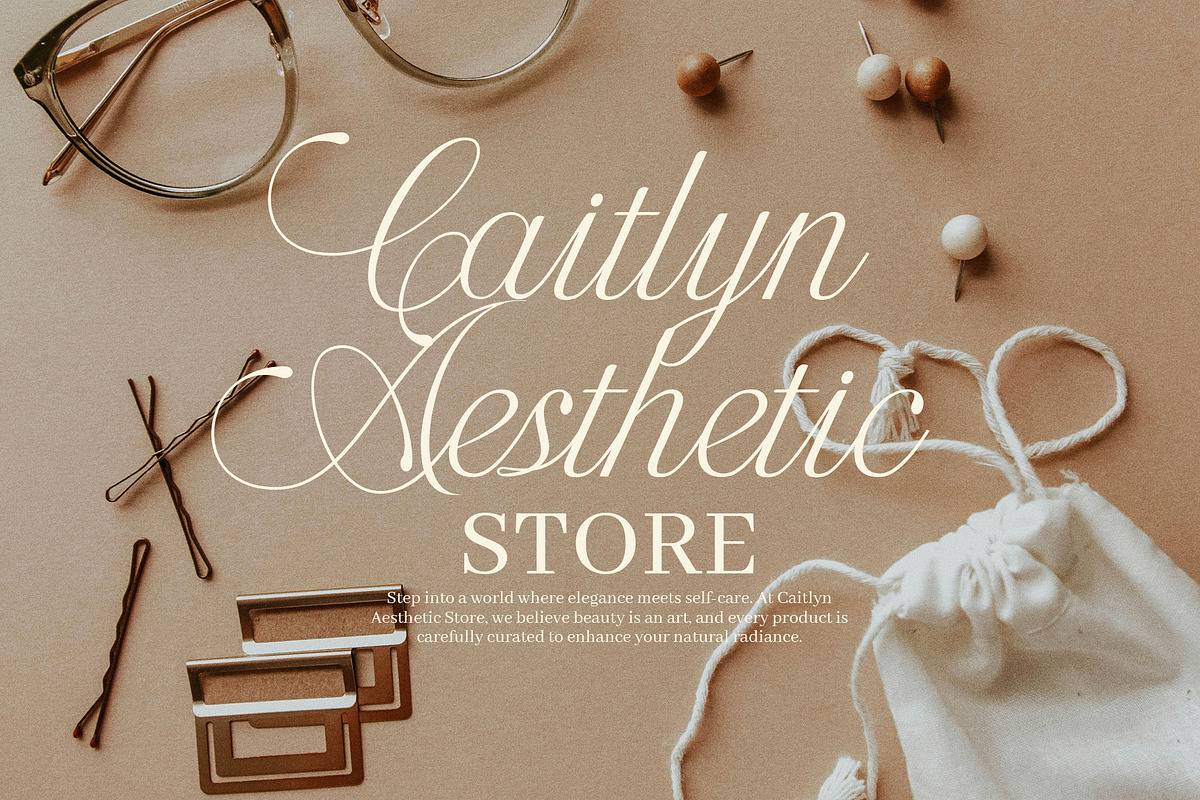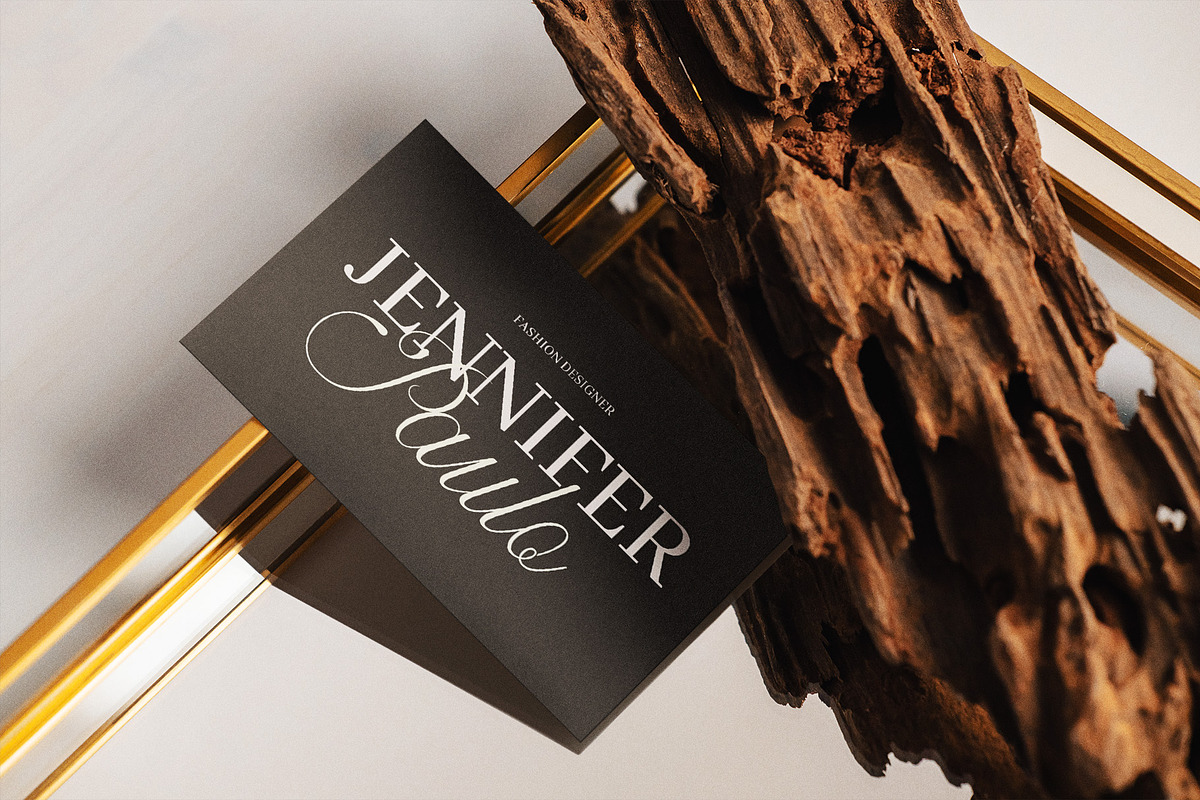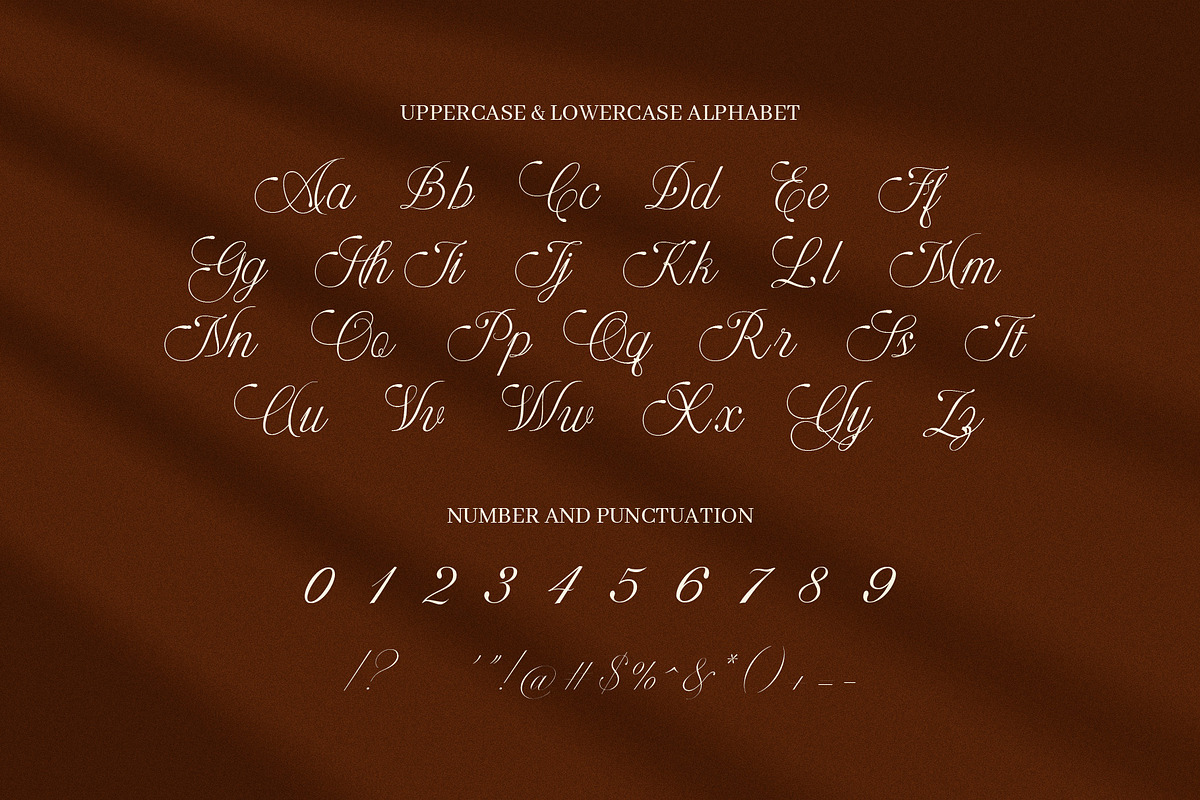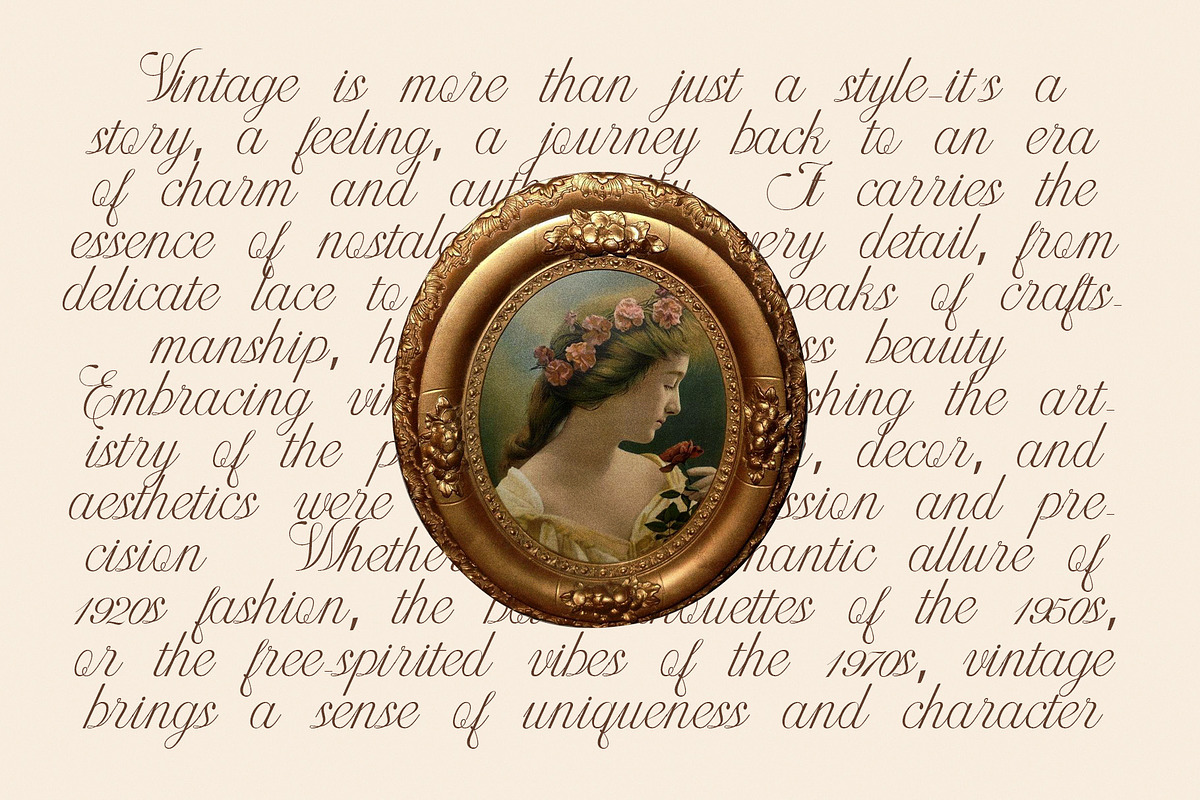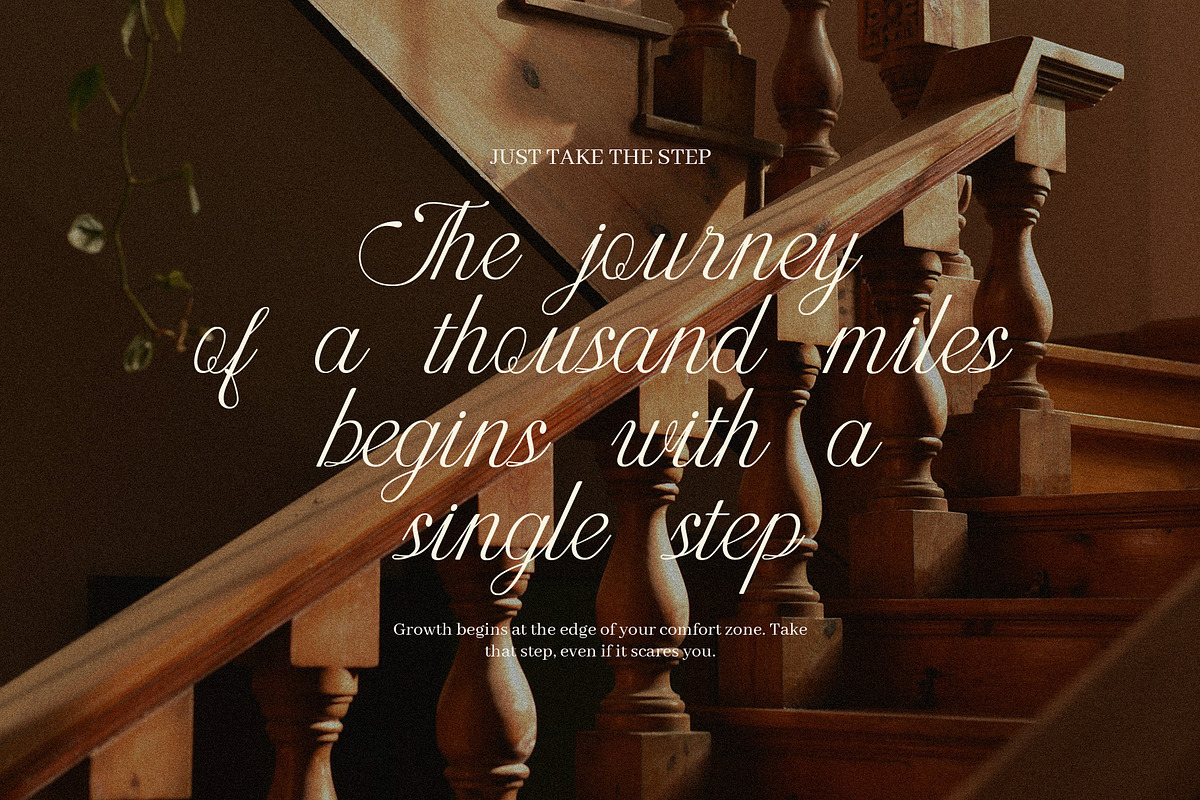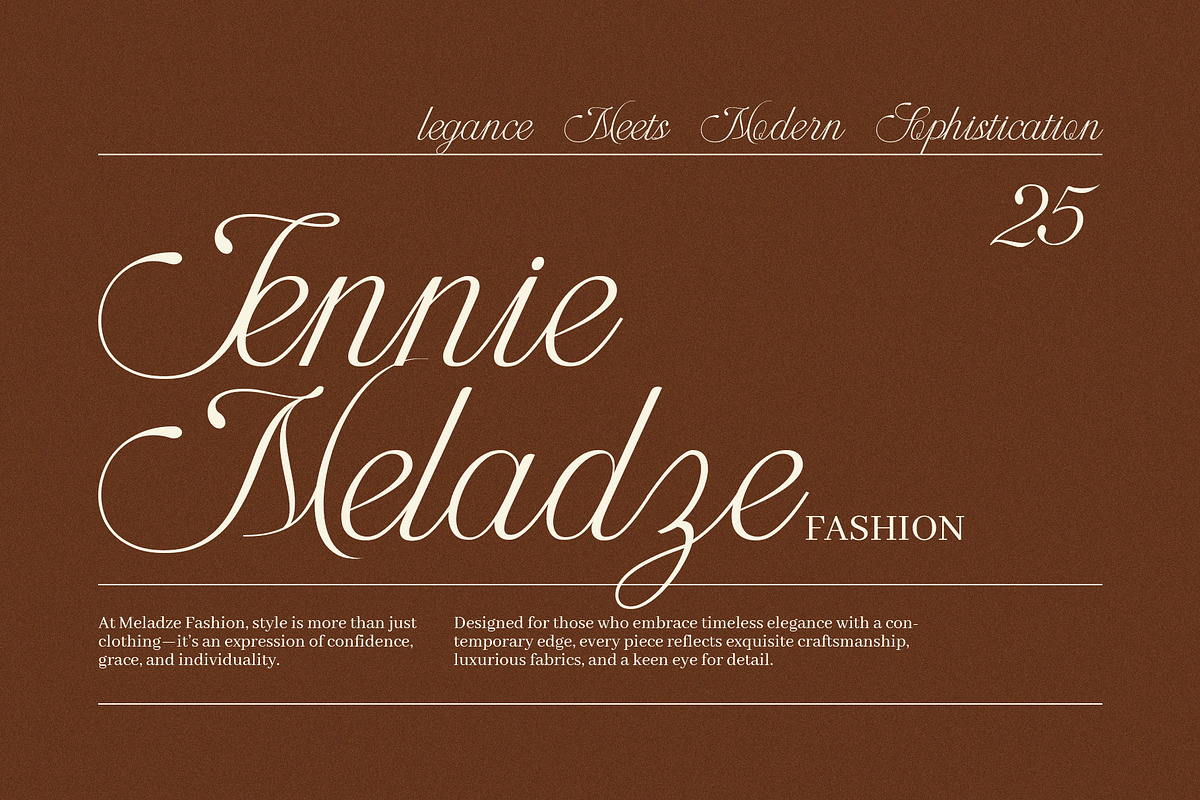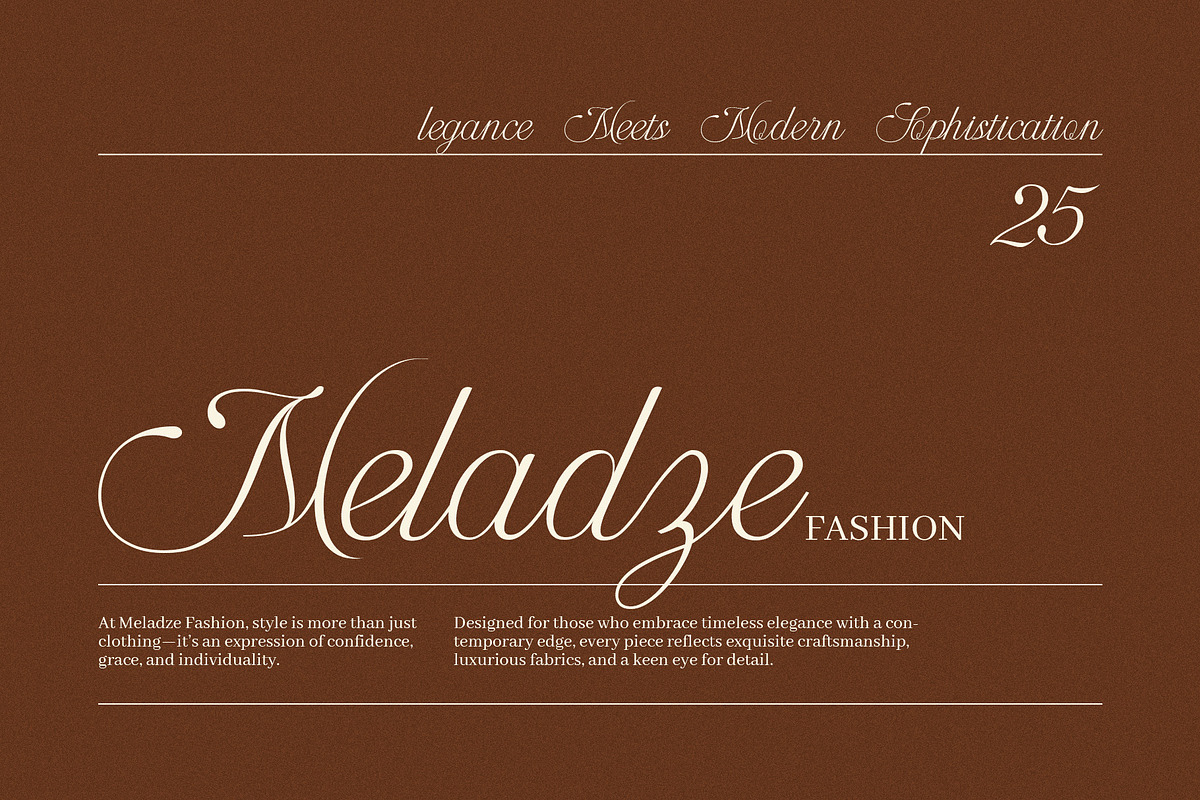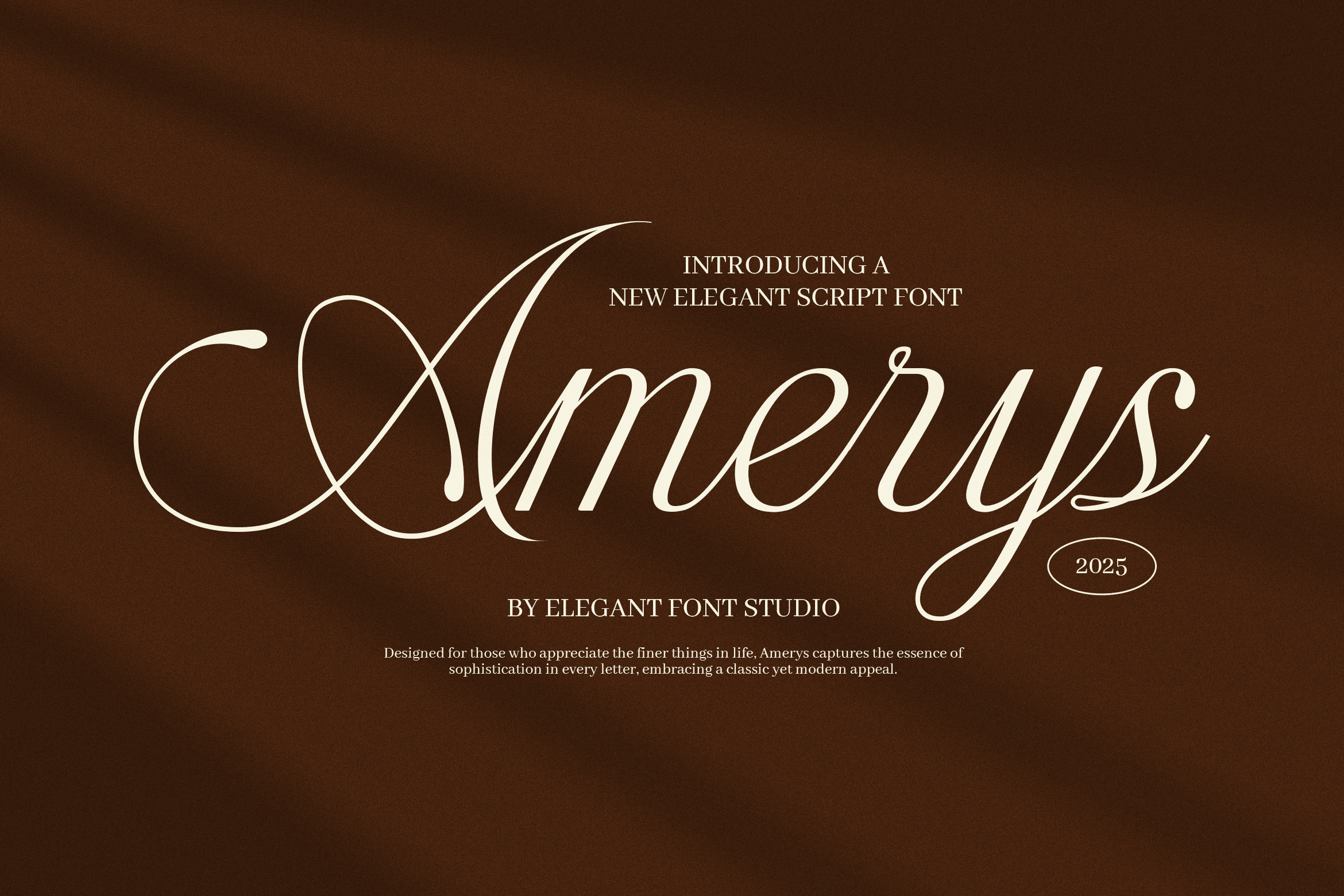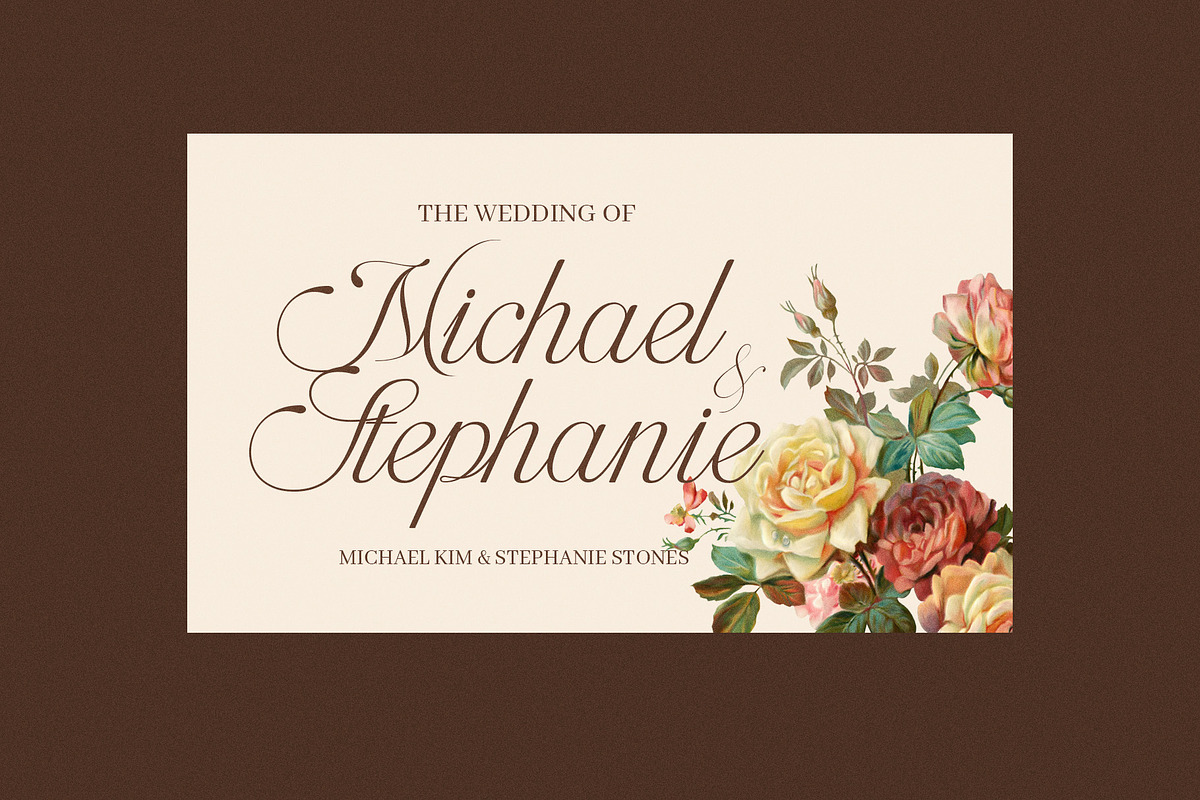
Amerys Wedding Script Font
Amerys Wedding Script Font is a refined and romantic script typeface that brings timeless beauty and graceful elegance to any design. Inspired by modern calligraphy and handwritten charm, this font features flowing strokes, delicate curves, and a natural rhythm that captures the essence of love, sophistication, and artistic expression.
Designed with care and creativity, Amerys includes a wide range of alternate characters, ligatures, and swashes to give your typography endless flexibility and a unique handcrafted touch. Each letter is thoughtfully balanced to blend seamlessly into both bold and delicate compositions, making it ideal for wedding invitations, branding, signature logos, event designs, and luxury packaging.
Whether you're designing a romantic album cover, an elegant magazine spread, or a stylish social media graphic, Amerys adapts beautifully to every creative project. Its fluid style is especially suited for bridal designs, boutique branding, fashion editorials, business cards, music covers, and personalized stationery.
This font is not only about aesthetics—it’s about emotion. Amerys brings warmth and elegance into your work, making it a perfect choice for wedding-themed designs, romantic advertisements, personal branding, and website headers that need a soft, stylish voice.
From luxurious layouts to heartfelt keepsakes, Amerys Wedding Script Font elevates every design with elegance, femininity, and a touch of classic romance. Let your words flow with beauty, and create unforgettable impressions with a font designed to inspire.
Discover the art of elegant typography with Amerys—where every curve tells a story, and every word is written with love.